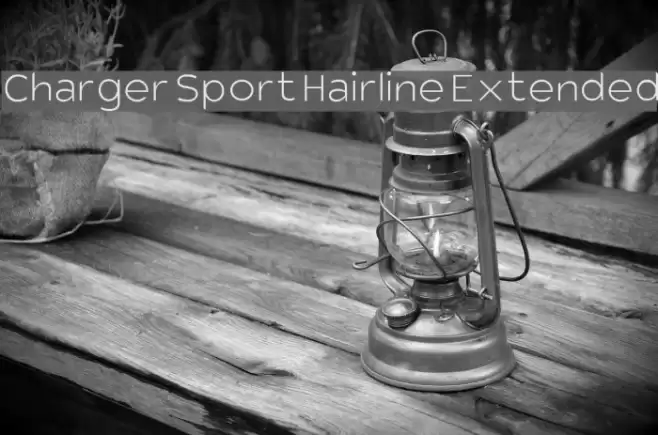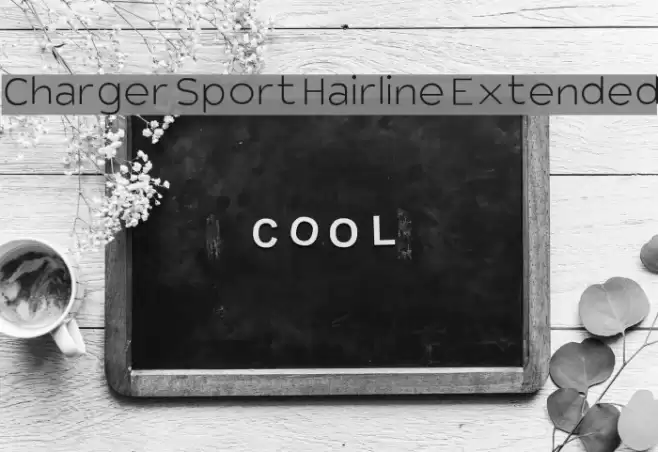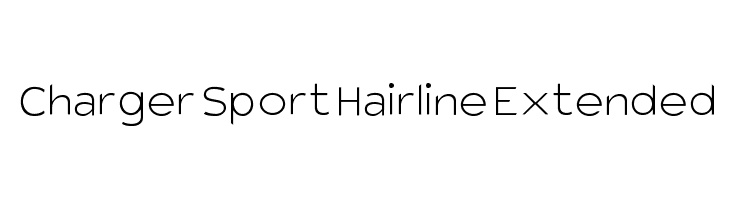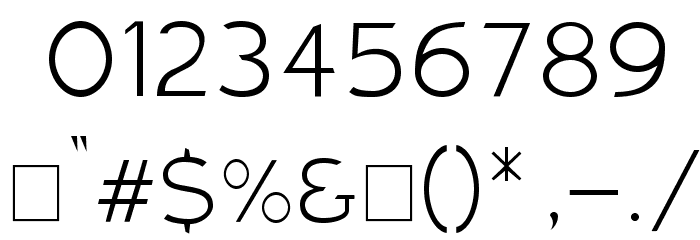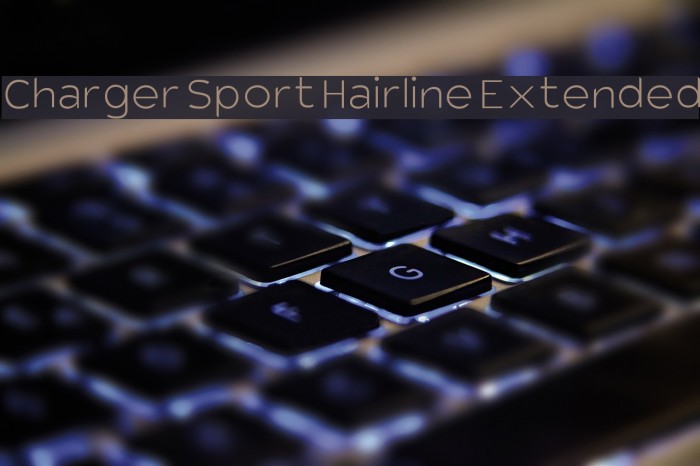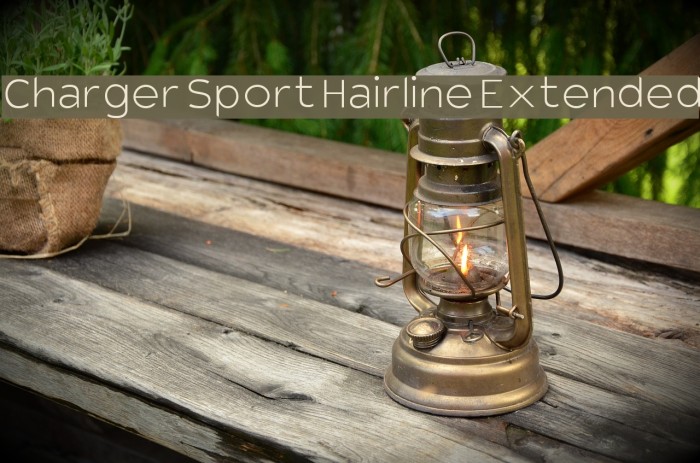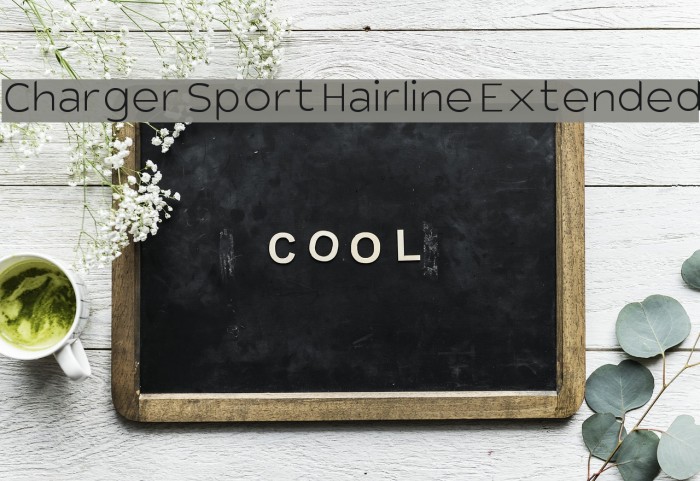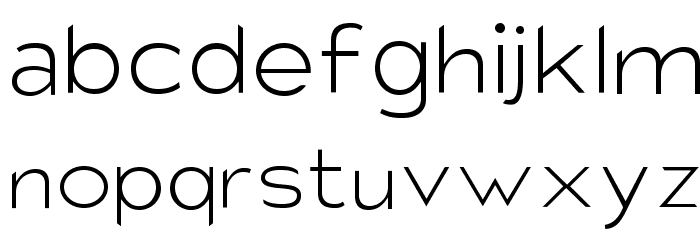
Charger Sport Hairline Extended Font
Charger Sport Hairline Extended Description
This font features a sleek and modern sans-serif design with a hairline weight, giving it a very thin and elegant appearance. The characters are extended, providing a wide and spacious feel. The clean lines and minimalistic style make it suitable for contemporary design projects. The uppercase and lowercase letters are well-proportioned, and the numerals are clear and legible. Special characters are included, maintaining the font's cohesive look. Its simplicity and elegance make it versatile for various applications.
A sleek, modern sans-serif font with a hairline weight and extended width from Uncategorized fonts.